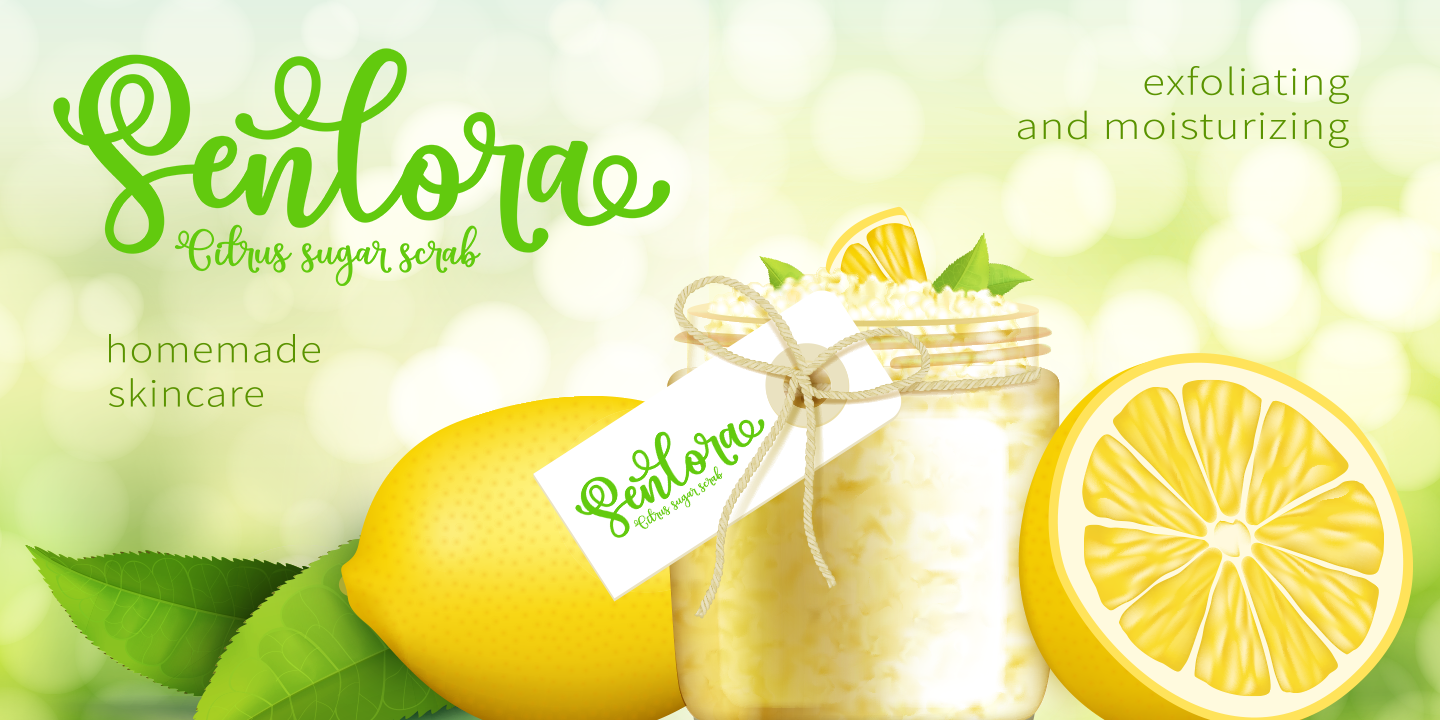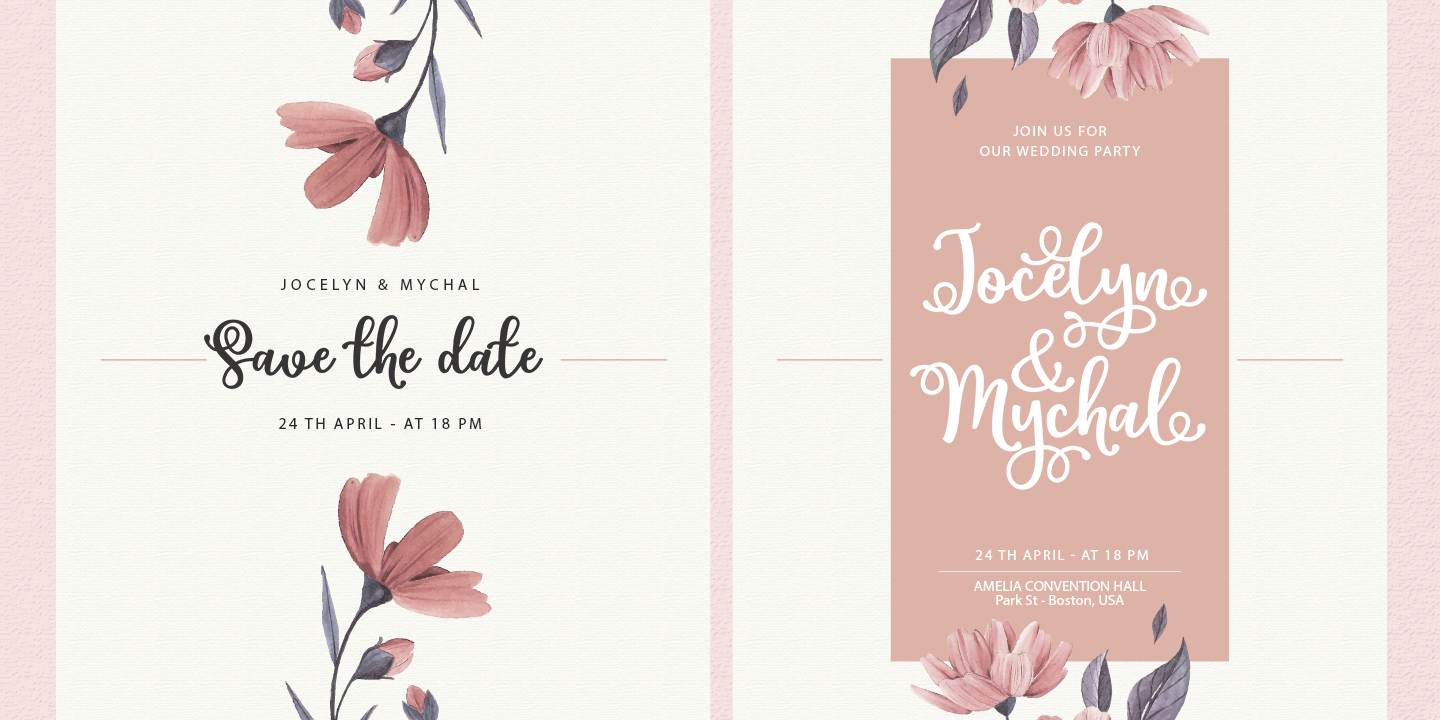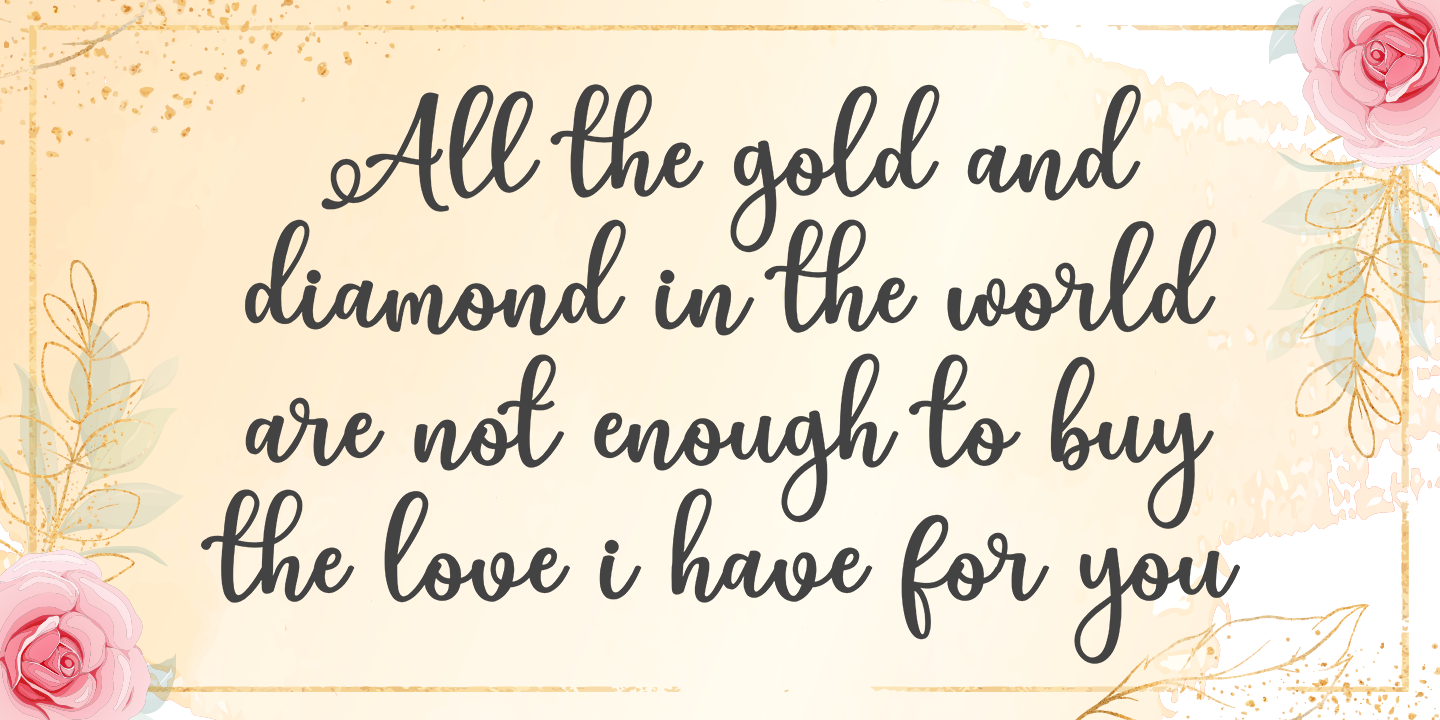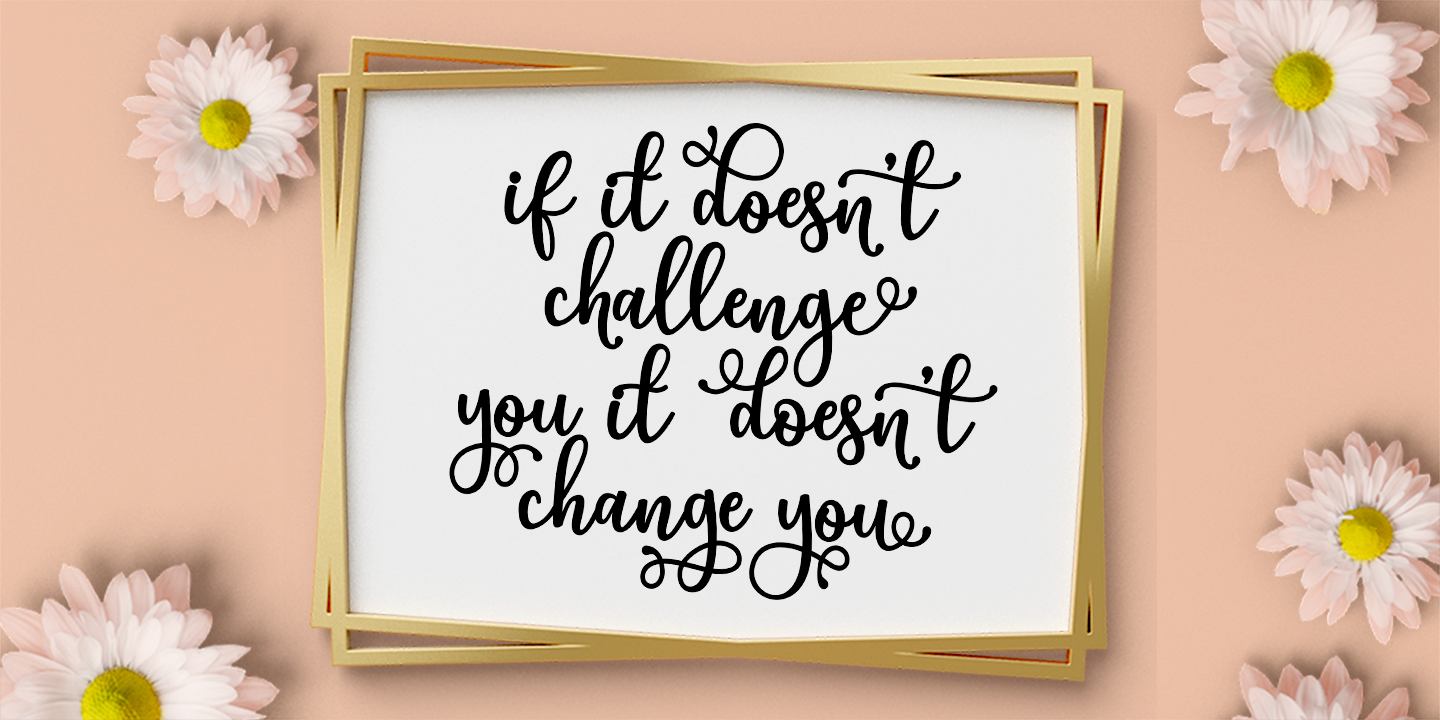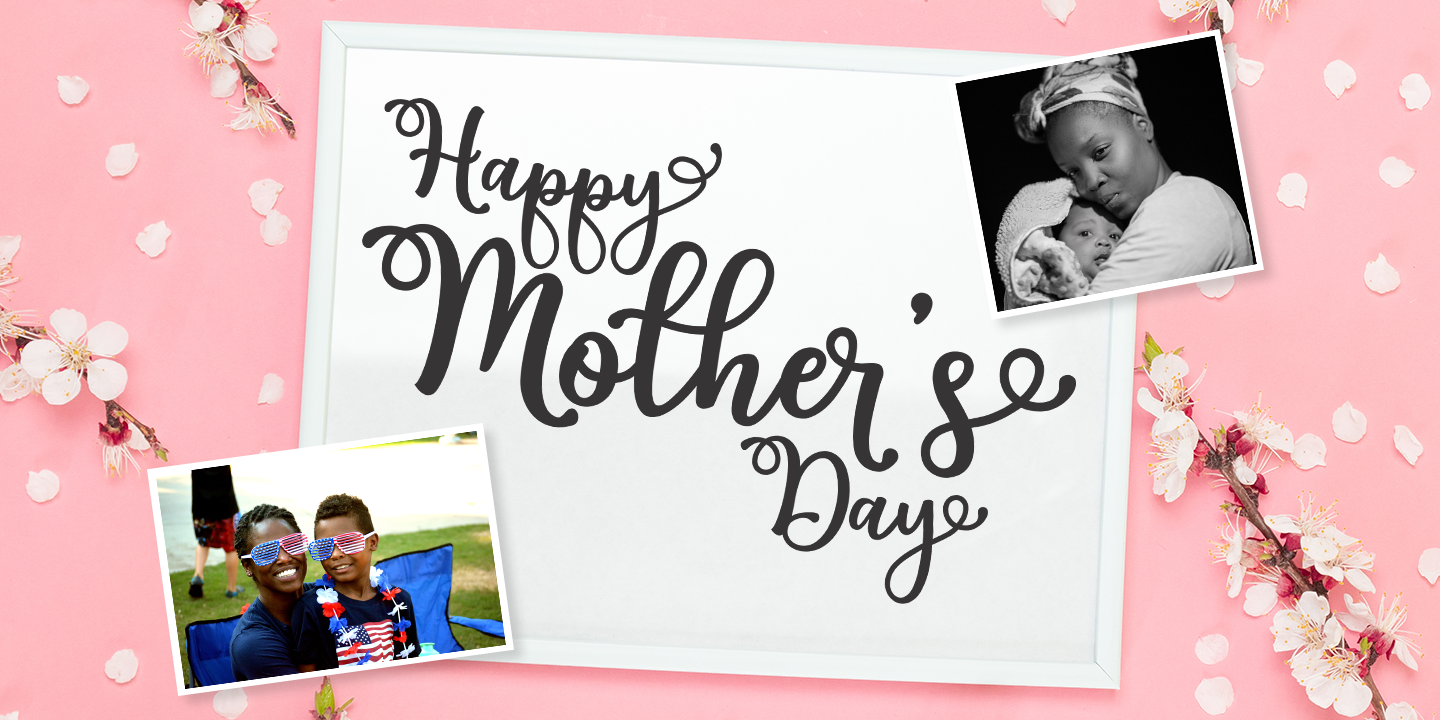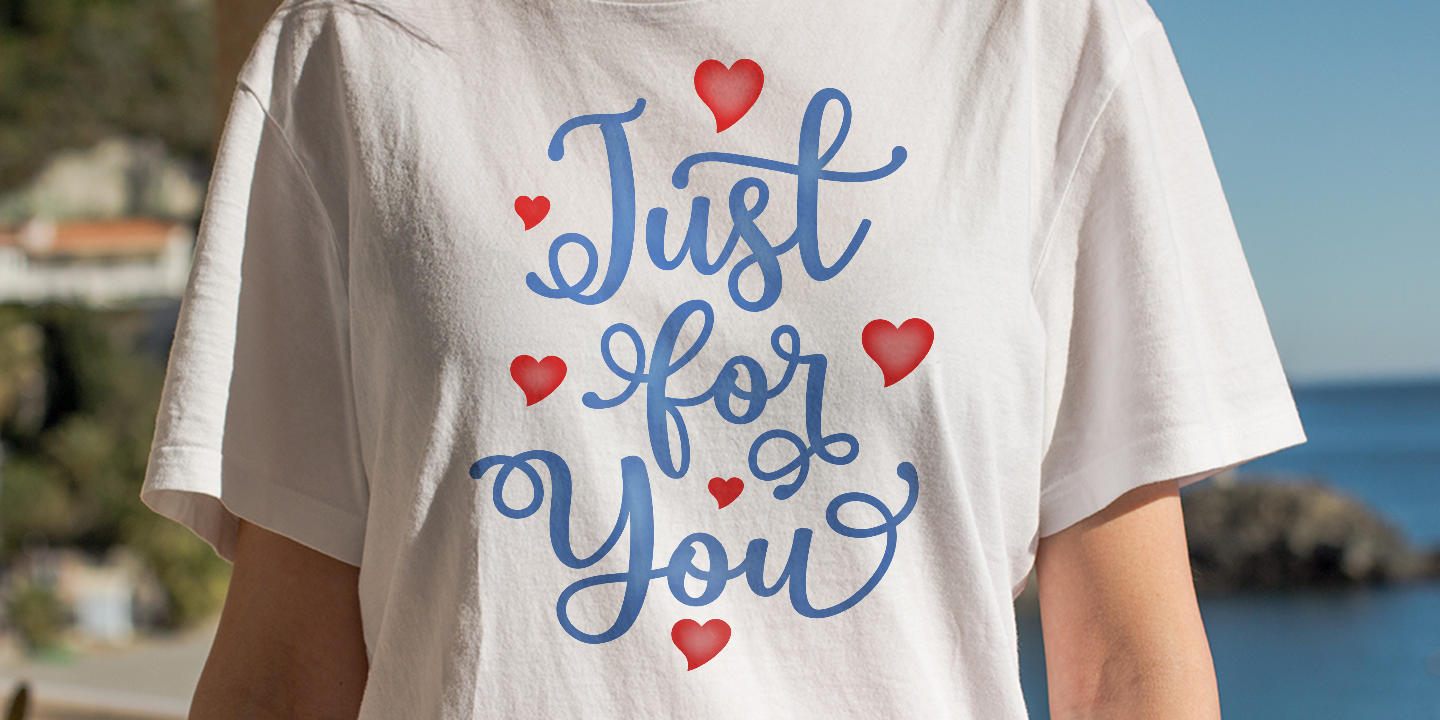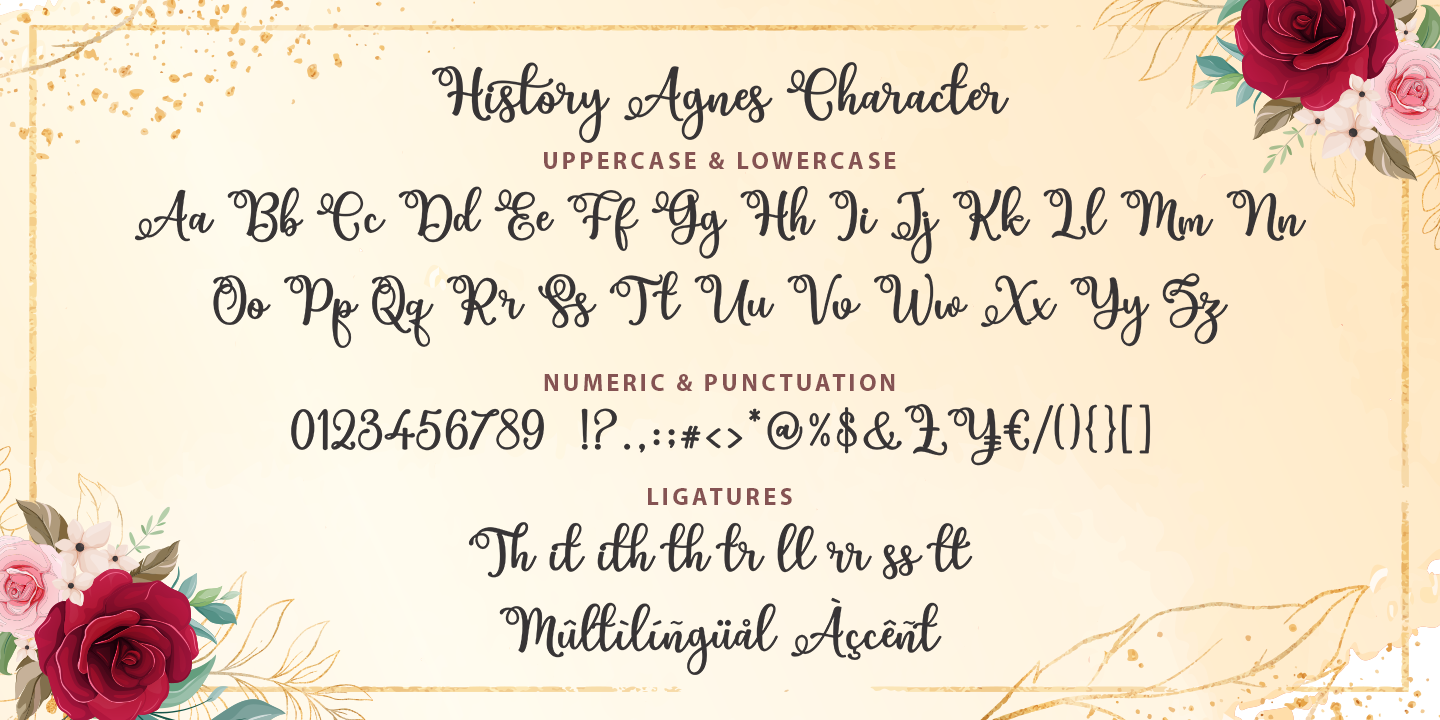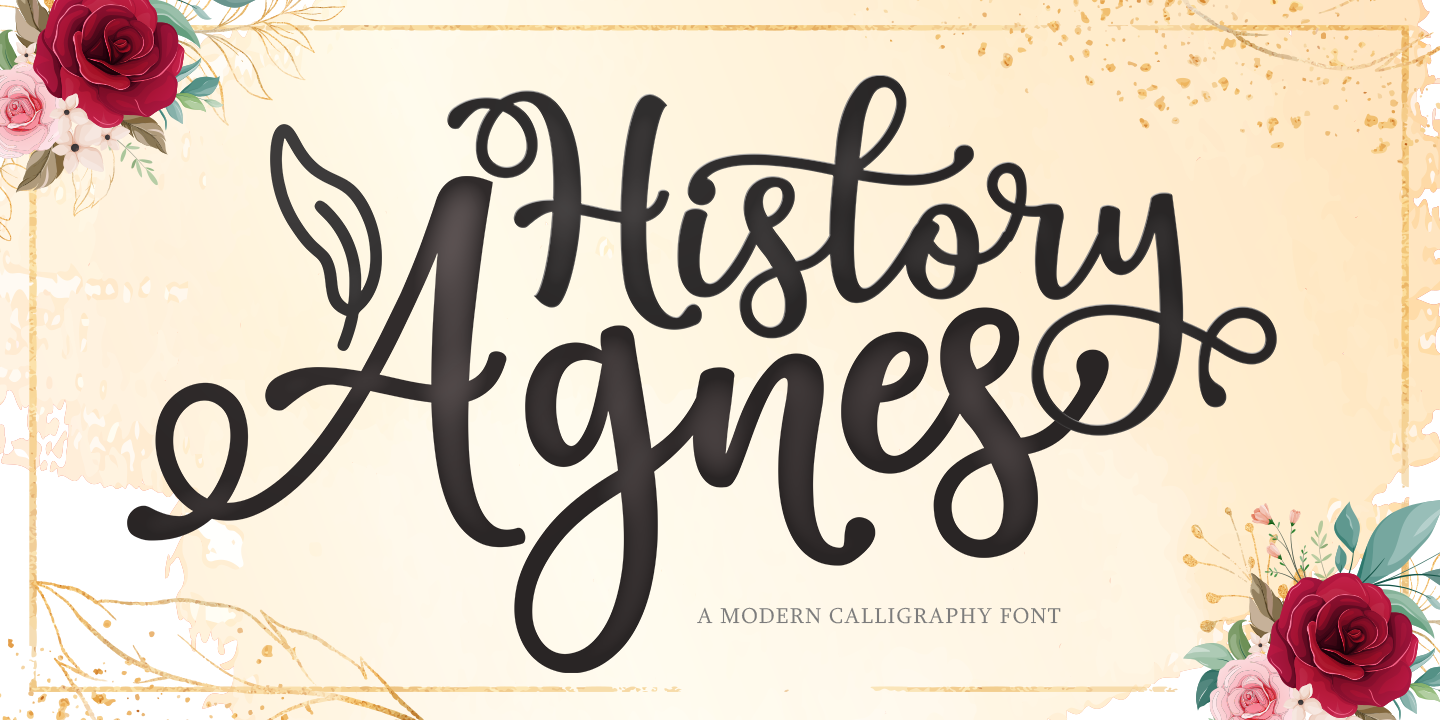
History Agnes is a beautiful modern calligraphy font. This font is available with several modern swirls that can make your work look elegant, sweet and perfect. Can be used for various purposes such as post, wedding invitations, brands, signatures, logos, t-shirts, labels, news, posters, and more.